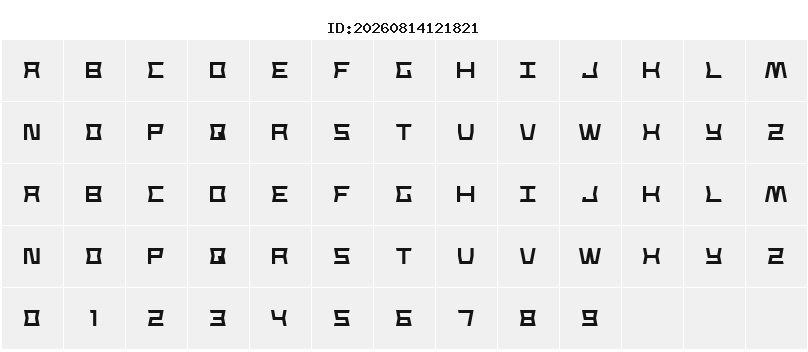
Strong Line 7 Preview
• Font Name: Strong Line 7
• Full Font Name: Strong Line 7
• Designer: Sizenko Alexander
• Manufacturer: Style-7
About Strong Line 7.ttf
Strong Line 7.ttf is a modern, elegant sans-serif font designed for ultimate readability and visual harmony. Perfect for branding, headlines, web design, and print materials.